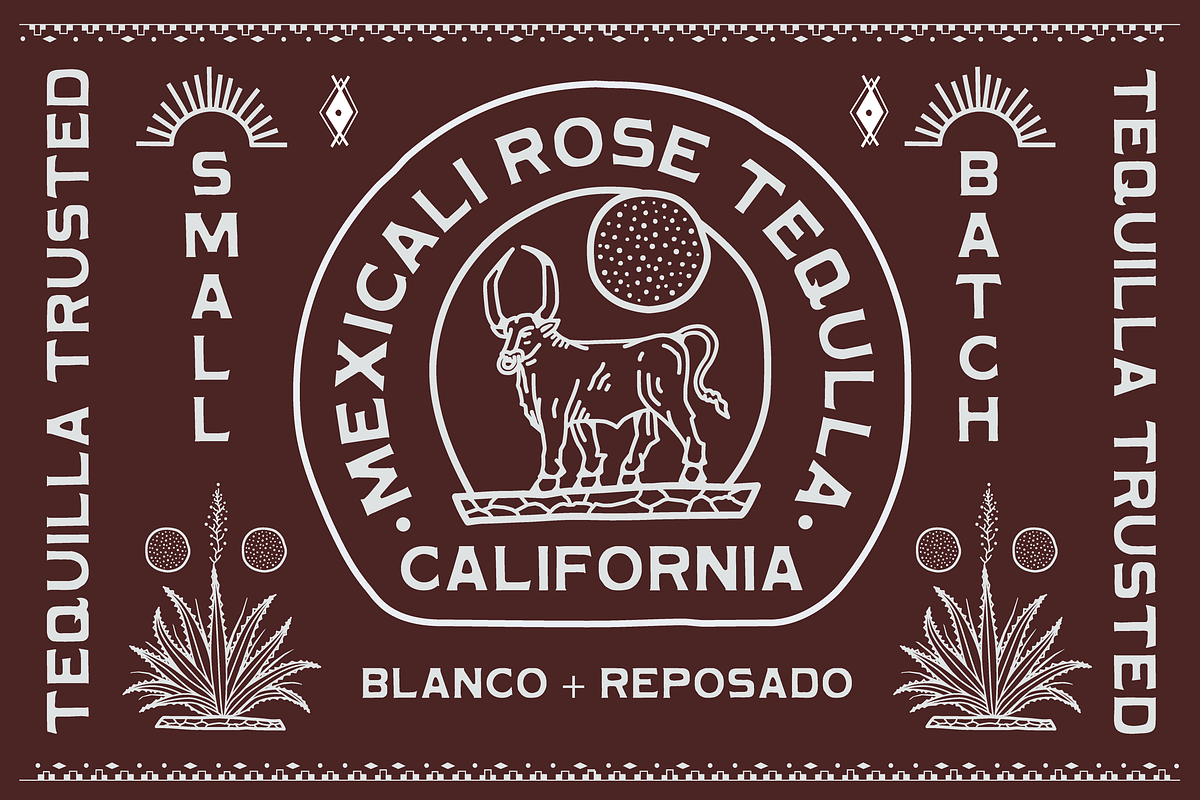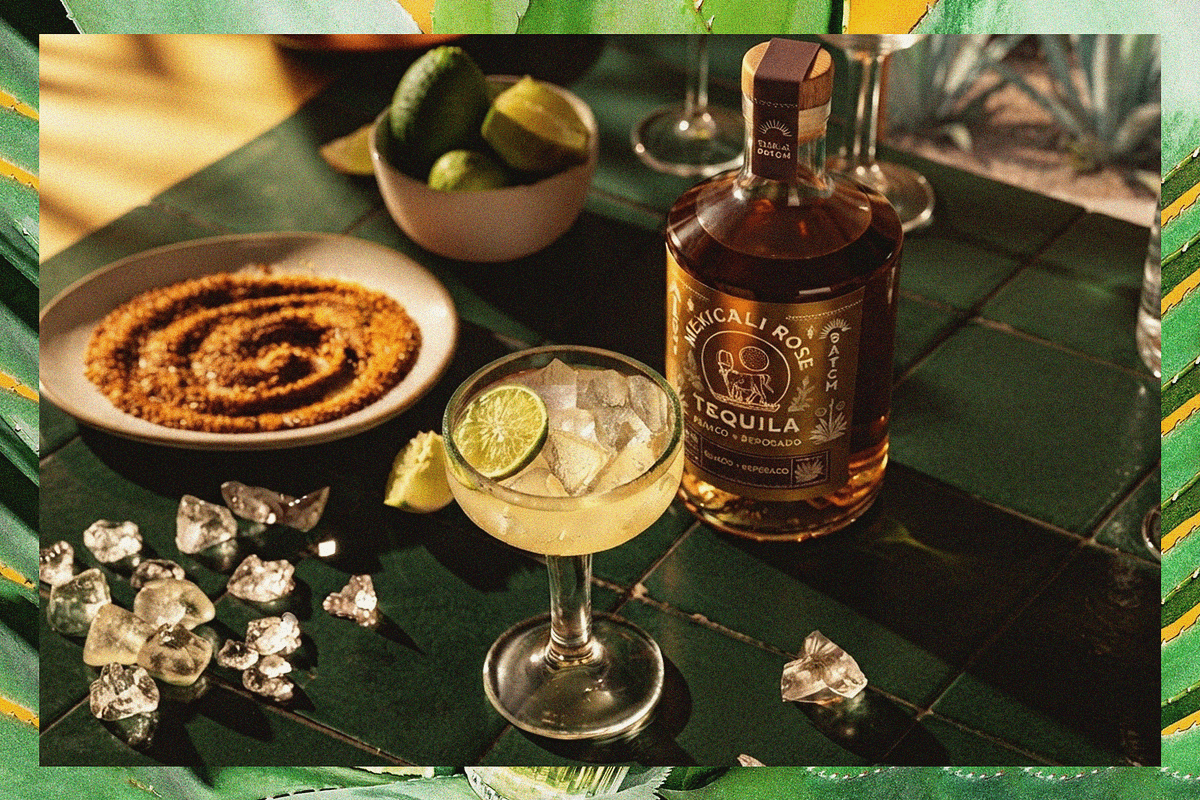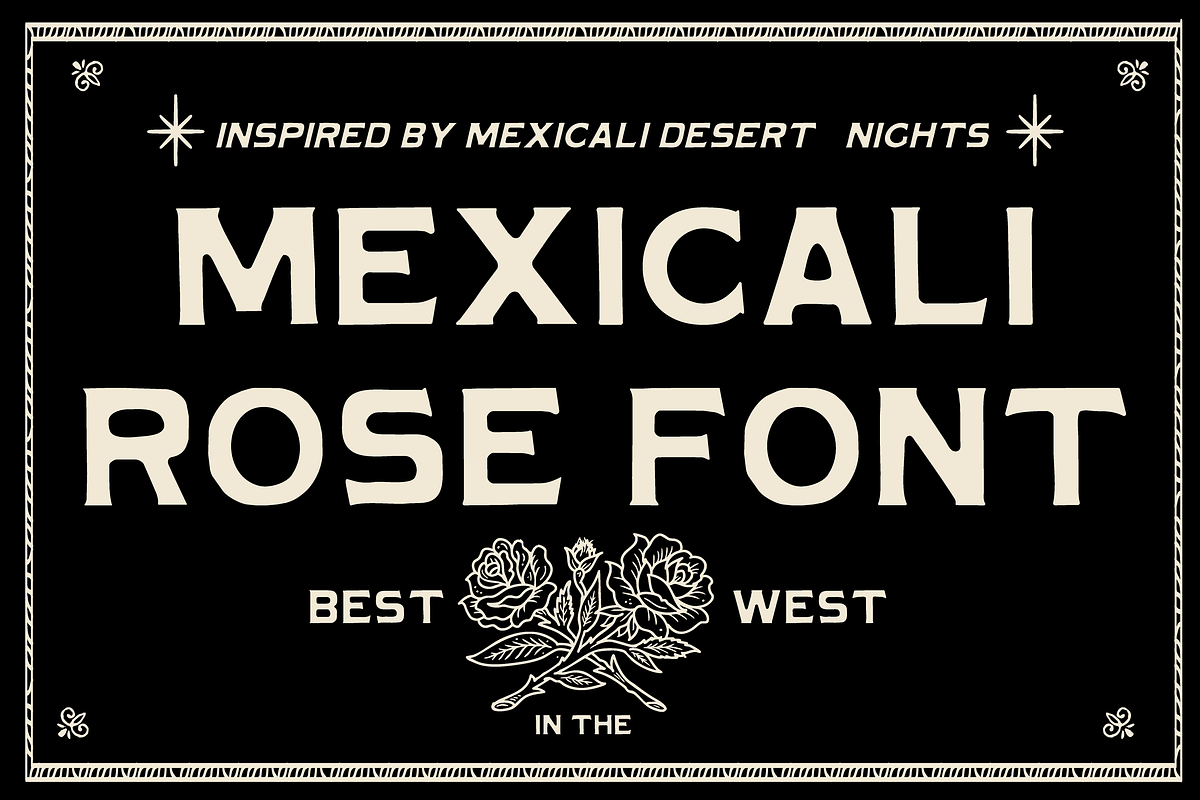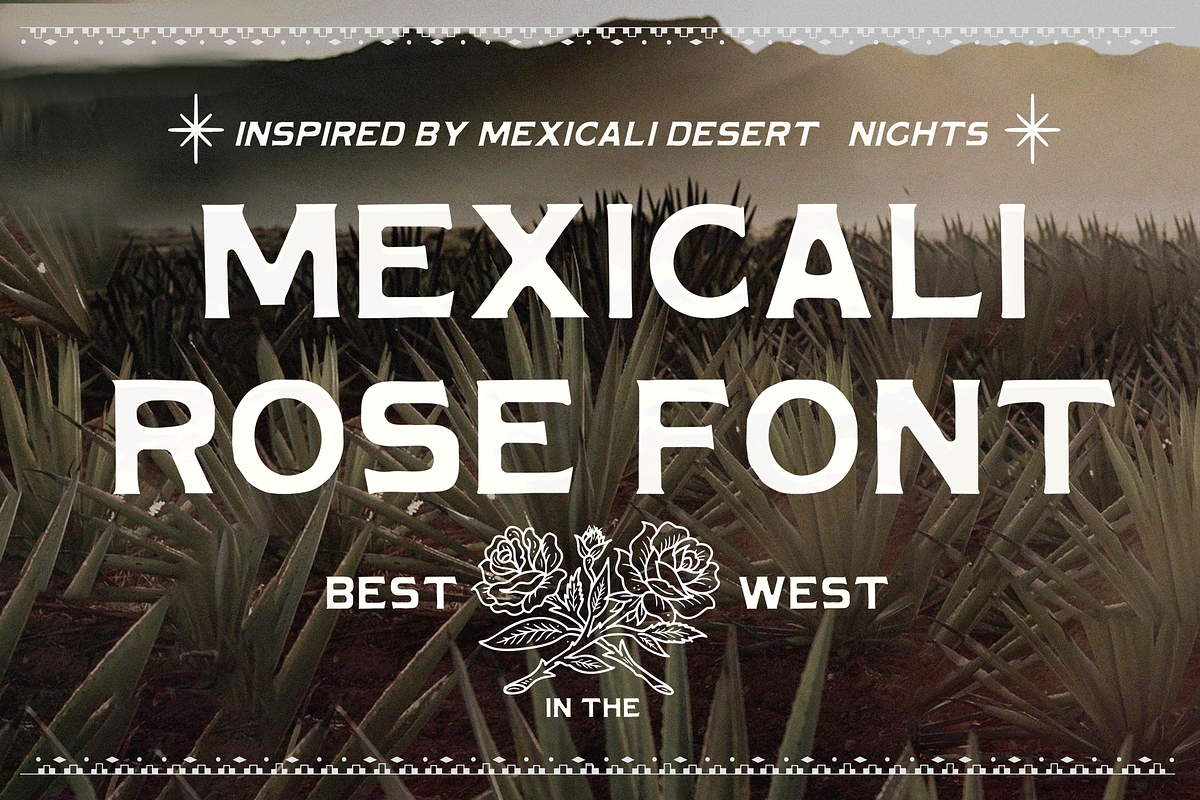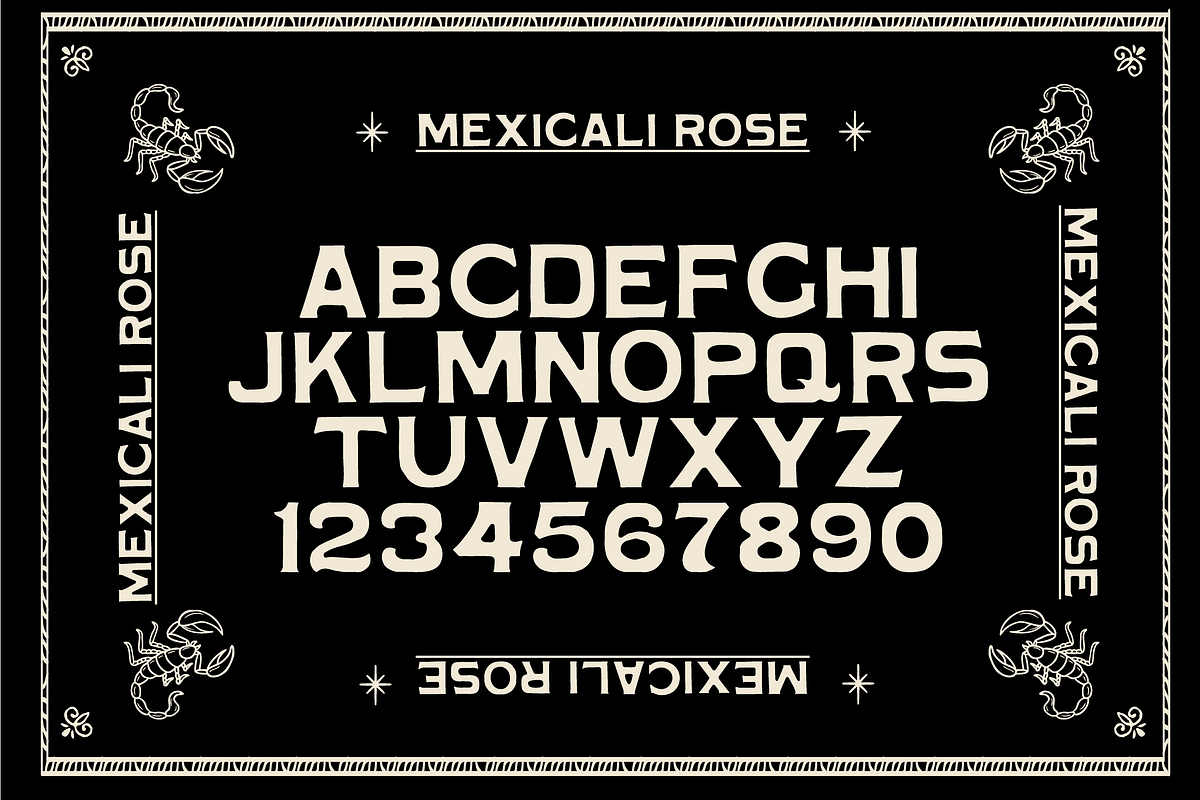
MEXICALI ROSE DISPLAY FONT
Mexicali Rose is a rustic display font inspired by the desert, vintage beer cans, and the sun-faded character of the Southwest. Bold, imperfect, and a little rough around the edges, it has a handmade feel with plenty of personality.
Perfect for branding, drink labels, apparel, packaging, posters, signage, or anything that needs a little desert character. Whether it’s printed on a dusty vintage tee, stretched across a tequila label, or painted on a roadside cantina, Mexicali Rose brings a little sun, grit, and Southwestern soul wherever it goes.